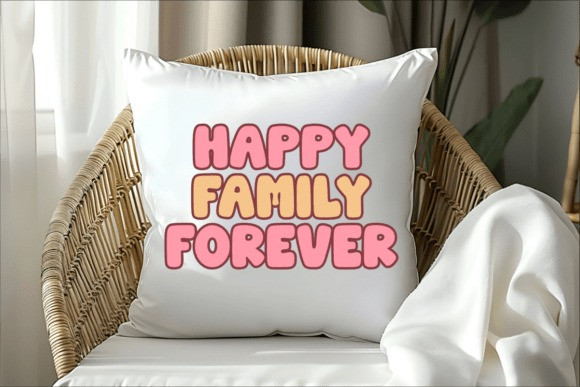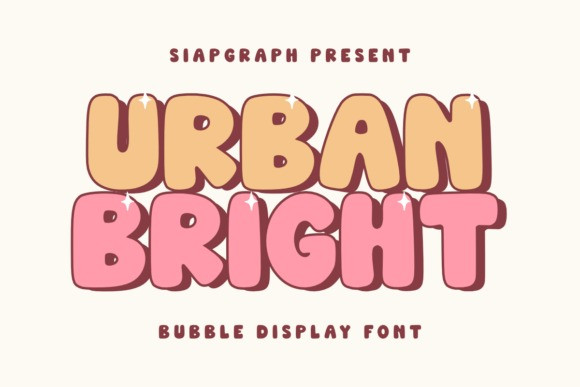
Urban Bright Font
Urban Bright Font is a vibrant and cheerful bubble display font that exudes a sense of modern fun and playful energy. Its rounded, slightly elongated letterforms with a bold black outline and subtle inner highlights create a distinctively bright and eye-catching aesthetic. The playful starburst accents further enhance its lively and engaging personality. This font is perfect for injecting a dose of modern cheerfulness and urban vibrancy into a wide array of creative projects.
Imagine Urban Bright bringing a fun and energetic flair to stickers, vibrant planner designs, bold t-shirt graphics, eye-catching labels, unique invitations, personalized tumblers, and countless other engaging crafts. Its distinctively bright and playful style makes it exceptionally well-suited for products targeting end-users who enjoy crafting with Cricut, sublimation, and other DIY methods, adding a touch of modern vibrancy and fun to their creations.
Urban Bright’s unique character will make your designs stand out with its cheerful and contemporary aesthetic, bringing a sense of energy and positivity with its bright and bubbly charm.